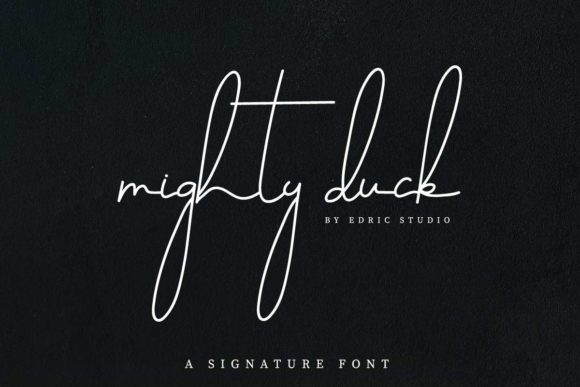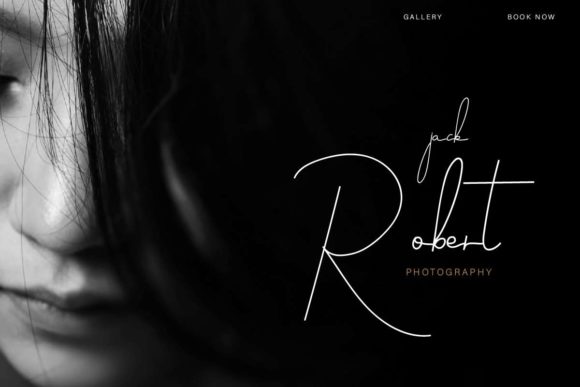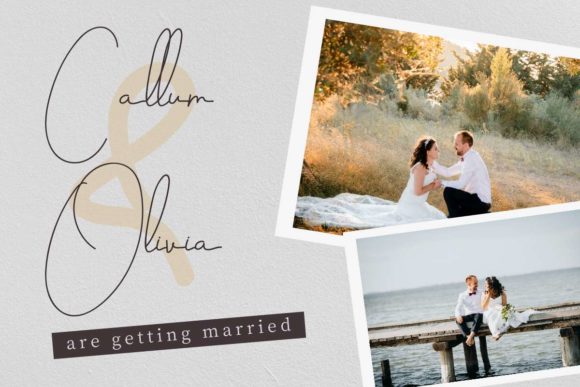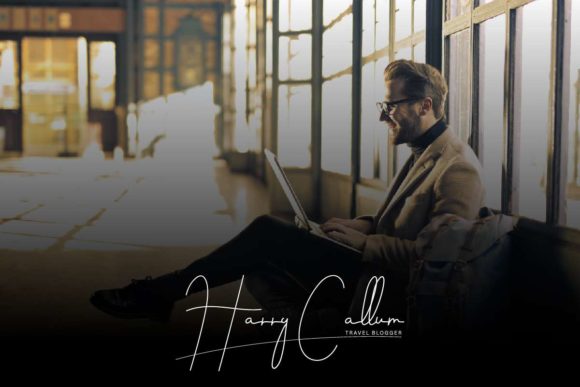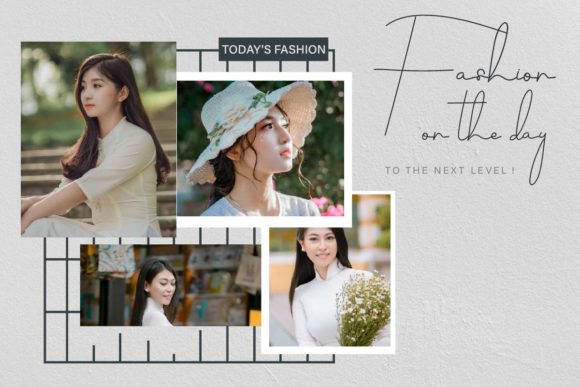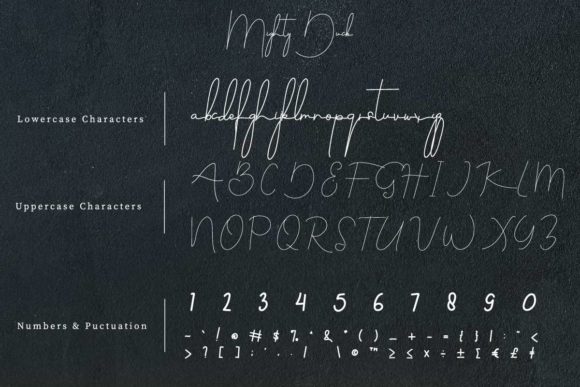
Introduction to Mighty Duck Font
Have you ever been working on a creative project and needed that perfect font to give it a touch of elegance and charm? I’m sure you have, and that’s exactly why I’m excited to introduce you to the Mighty Duck Font.
Imagine you’re designing a wedding invitation and you want to make it truly special. You need a font that exudes sophistication, yet remains approachable. That’s where the Mighty Duck Font comes in – a beautifully crafted, high-quality font that’s perfect for any design project that requires a handwritten touch.
Key Features of Mighty Duck Font
- High-quality design: The Mighty Duck Font is a premium font designed for creative projects that require a unique touch.
- Large character set: The font includes a comprehensive character set, covering a wide range of languages and special characters.
- Perfect for creative projects: The Mighty Duck Font is ideal for use in creative projects, such as graphic design, digital art, and typography-based designs.
Honest Review: Mighty Duck Font
I recently had the chance to work with the Mighty Duck Font, and I must say it’s a solid addition to any designer’s toolkit. ✨ One of the standout features is its transparent background, which makes it easy to place over images or other design elements.
- High-quality design with clear lines
- May not be suitable for complex typography due to limited character set
- No bold or italic variations available
Overall, I’m impressed with the Mighty Duck Font, and I’d definitely recommend it to designers looking for a reliable and free design resource. However, keep in mind its limitations and use it accordingly.
Mighty Duck Font
To get the most out of the Mighty Duck Font, experiment with different font sizes and styles to create visually appealing designs. You can also combine the font with other design elements to create a unique look.
The Mighty Duck Font is ideal for use in various creative projects, including logo design, branding, and marketing materials. Its high-quality design and transparent background make it a versatile resource for designers.